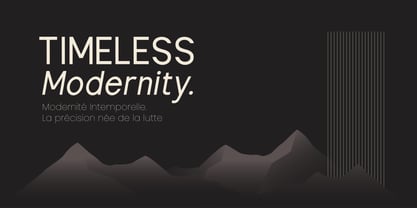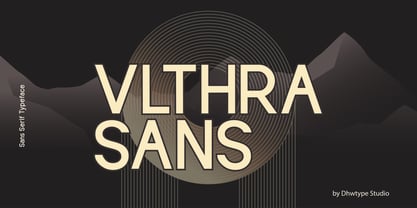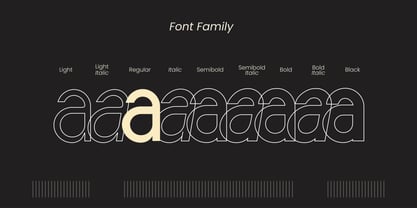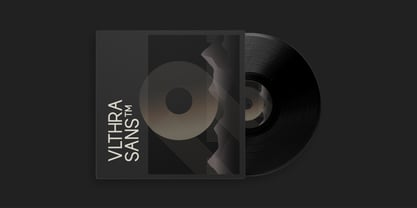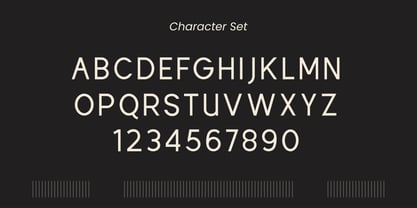
Vlthra Sans
by Dhwtype
The Vlthra Sans Font Family was designed by Nanda Deni Hermawan and published by Dhwtype. Vlthra Sans contains 9 styles and family package options.
Vlthra Sans is a modern sans-serif typeface designed to embody timeless elegance, precision, and versatility. Crafted with a balance between minimalism and sophistication, this type family is built for contemporary design needs — from branding, editorial layouts, to digital interfaces.
Inspired by the philosophy of Hidden Struggle, Vlthra Sans™ represents the unseen effort behind every perfect form. Its geometric yet fluid letterforms create a seamless visual flow, making it ideal for both text and display usage.
The font family consists of 9 meticulously crafted weights — from Light to Black — each accompanied by matching italics. With subtle curves and sharp edges, Vlthra Sans™ blends precision with human warmth, offering a flexible palette for modern typography.
Supporting multi-language characters, including Latin and various special symbols, Vlthra Sans™ is designed to perform flawlessly across global applications. Its balanced proportions and refined kerning ensure exceptional legibility, while its timeless aesthetic makes it a reliable choice for future-forward designs.
Whether for luxury branding, editorial projects, or cutting-edge tech interfaces, Vlthra Sans™ carves its presence with understated confidence.
Key Features:
• 9 Weights + Italics
• Multi-Language Support
• OpenType Features
• Timeless Modern Design
• Precision Kerning
• Versatile for Print & Digital
Designers: Nanda Deni Hermawan
Publisher: Dhwtype
Foundry: Dhwtype
Design Owner: Dhwtype